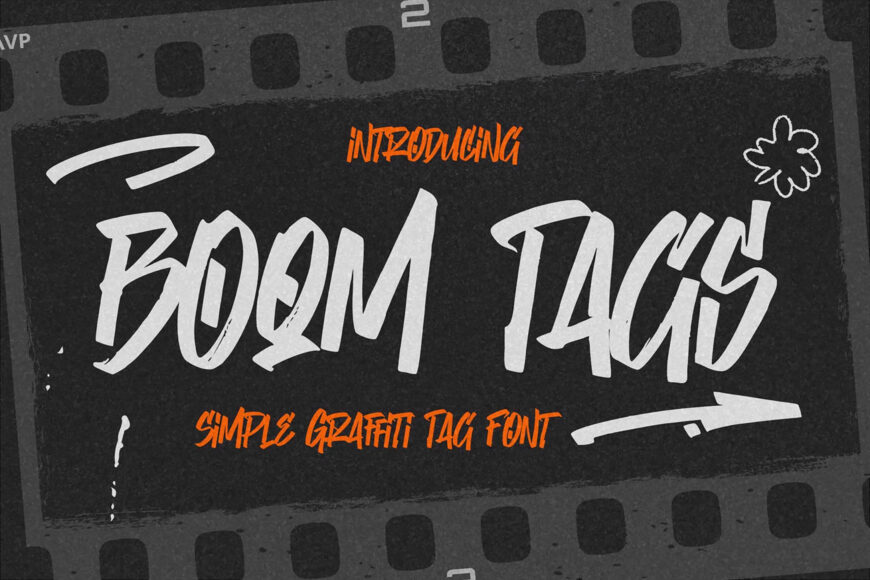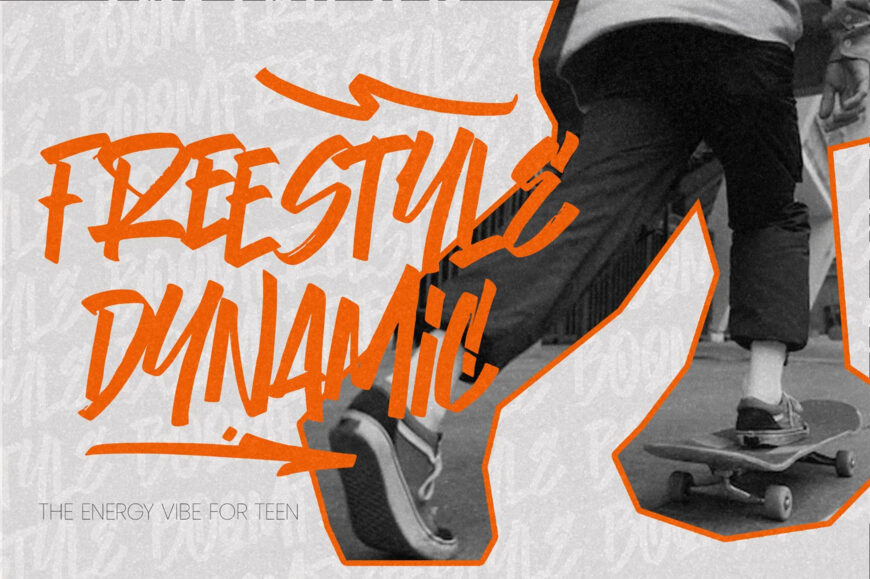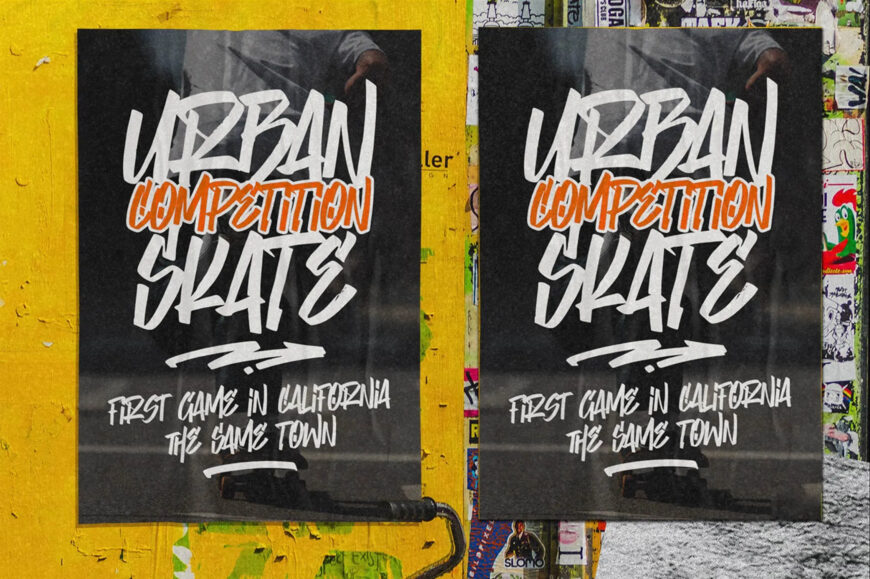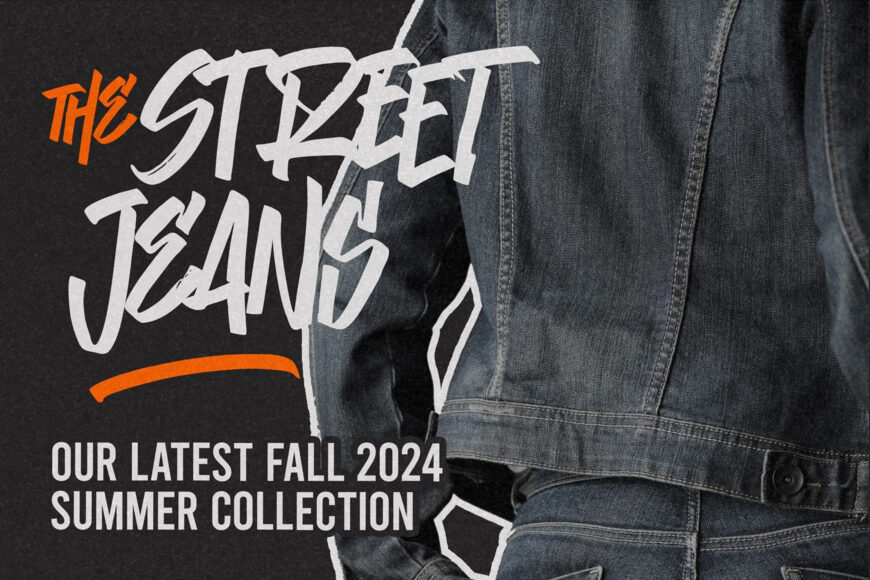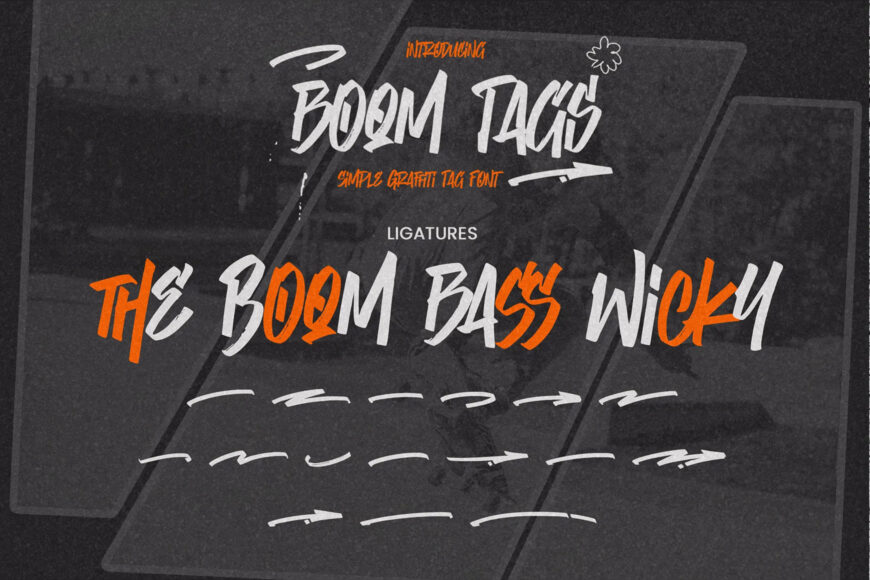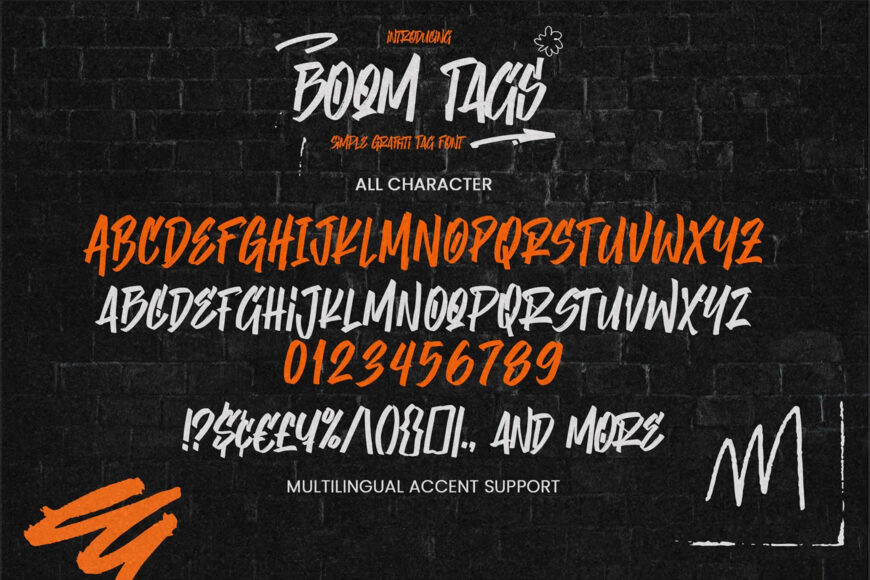
Boom Tags is an energetic, urban graffiti tag typeface designed to bring raw street authenticity to your creative projects. Featuring bold, hand-drawn marker strokes, edgy angles, and dynamic letterforms, it captures the rebellious spirit of skate culture and underground art.
Complete with all-caps characters, numbers, and custom swashes, this typeface is ideal for street fashion branding, event posters, album covers, and high-impact apparel designs that demand attention.